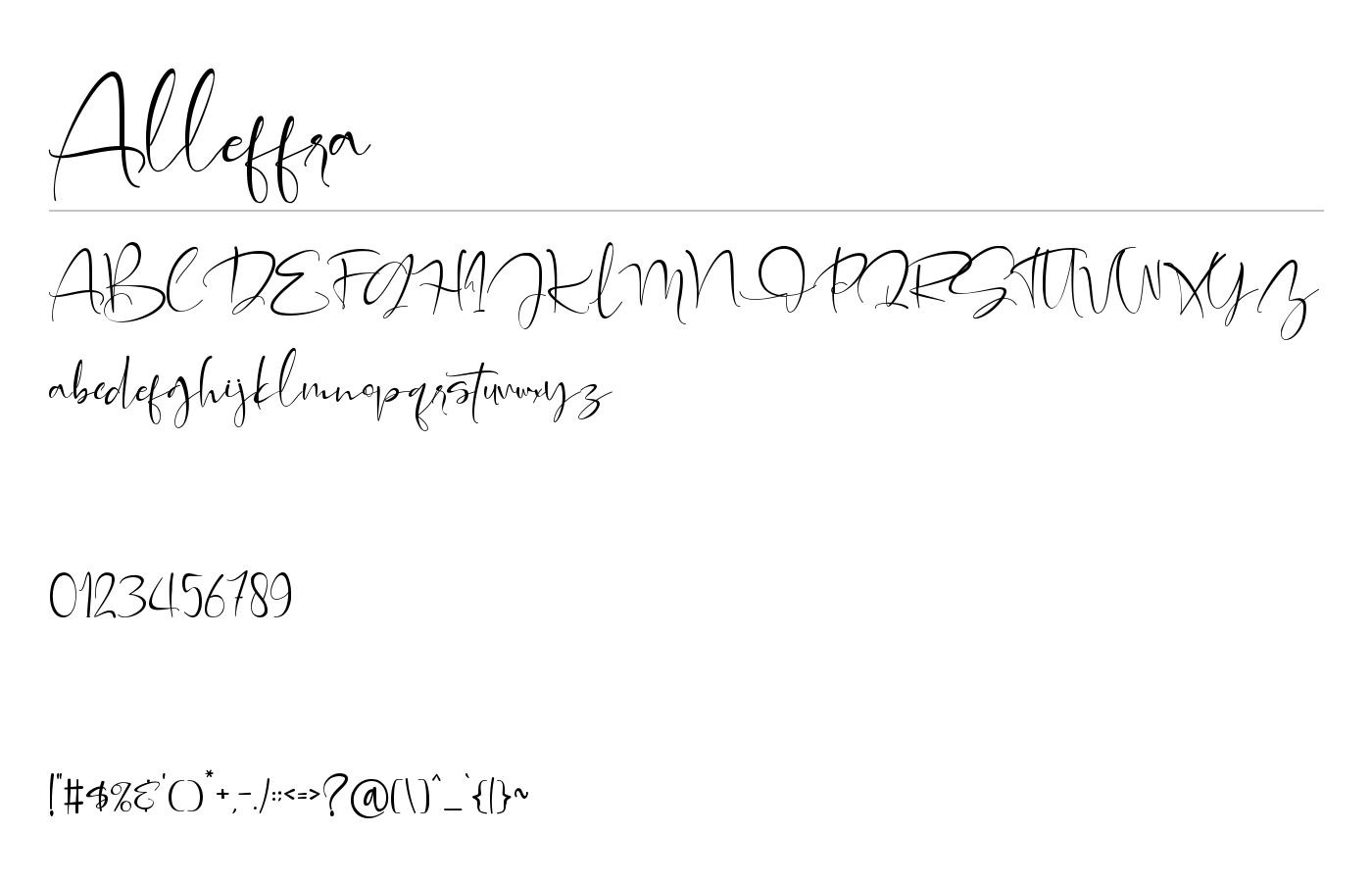
Alleffra is a delicate, handwritten script font characterized by its tall, slender letterforms and fluid, organic strokes that evoke a natural, elegant feel. Its light weight and airy spacing make it perfect for adding a personal, artistic touch to invitations, branding, and feminine or creative design projects where a graceful and modern handwritten style is desired.
Alleffra Font